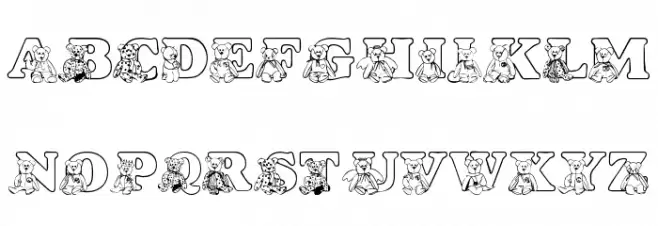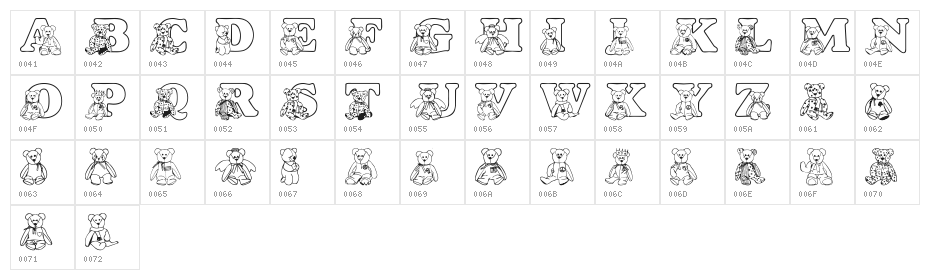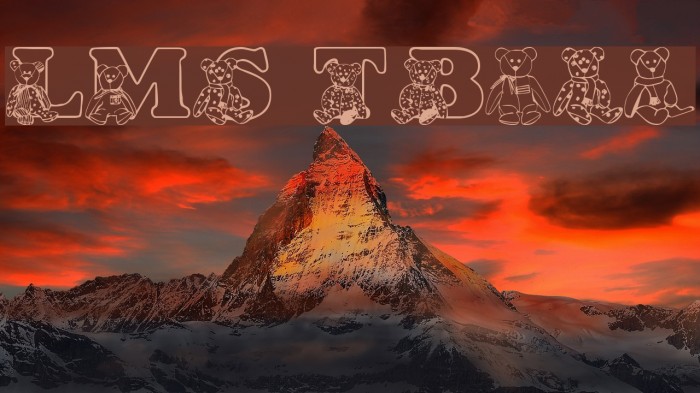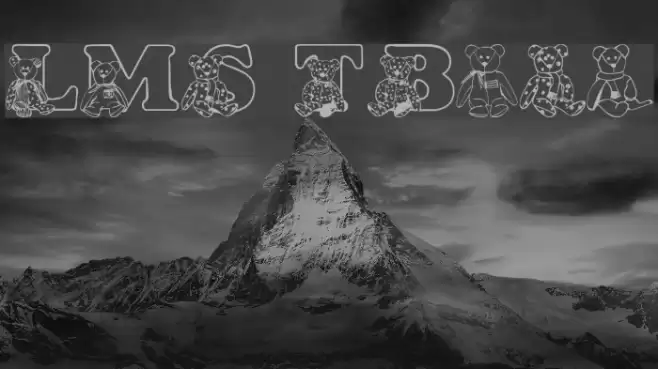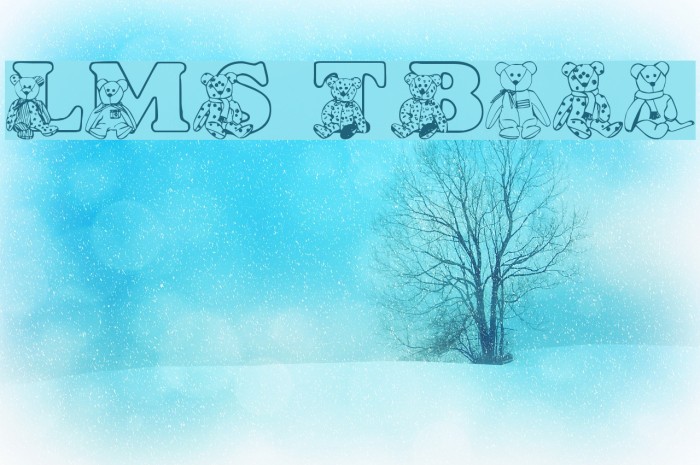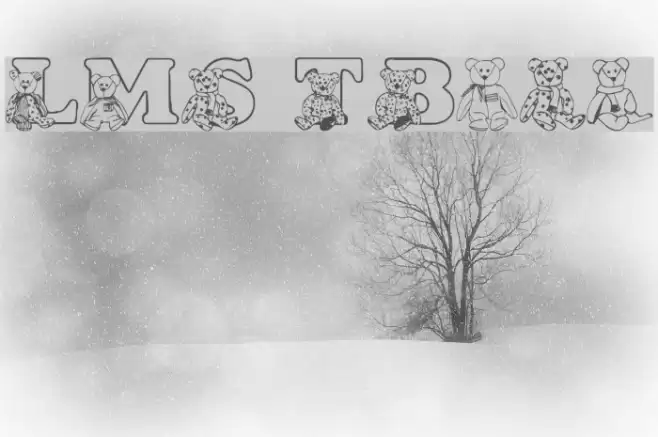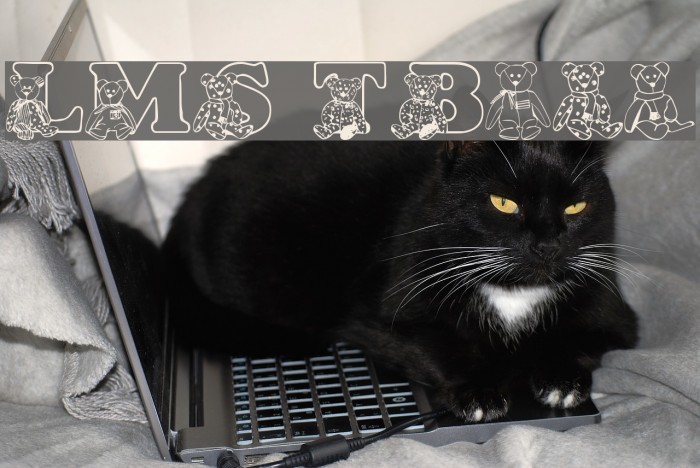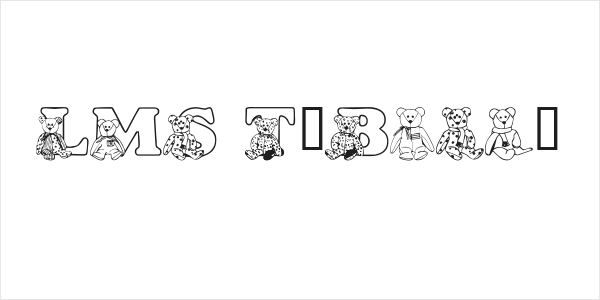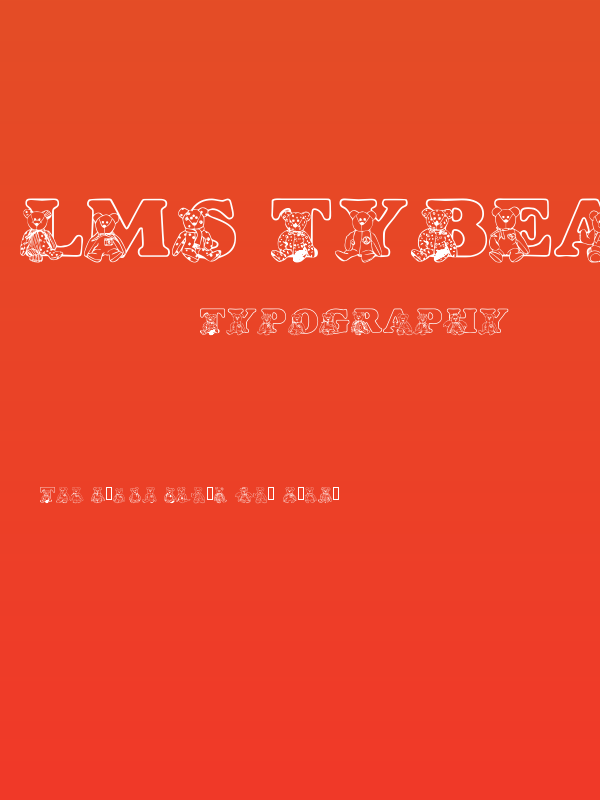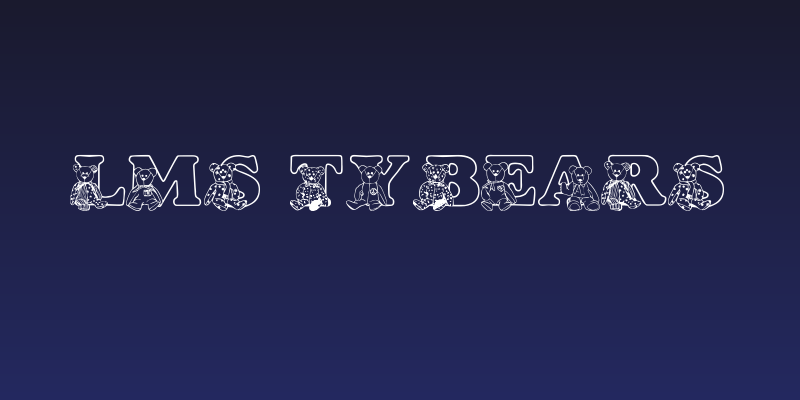
LMS TyBears Font
LMS TyBears Description
This playful and whimsical font features each letter adorned with charming teddy bear illustrations. The uppercase letters are bold and outlined, with each character hosting a unique teddy bear in various playful poses and outfits, adding a delightful touch to the design. The bears are intricately detailed, showcasing different patterns and accessories, which makes each letter stand out with its own personality. This font is perfect for projects that aim to evoke a sense of nostalgia, warmth, and childlike wonder. The detailed artwork within each letter makes it ideal for decorative purposes where a playful and inviting atmosphere is desired.
| Overall Style | Playful, Whimsical, Decorative |
| Use Case | Headlines, Decorative text, Children's materials |
| Proposed Projects | Ideal for children's books, nursery decor, playful branding, and greeting cards. |